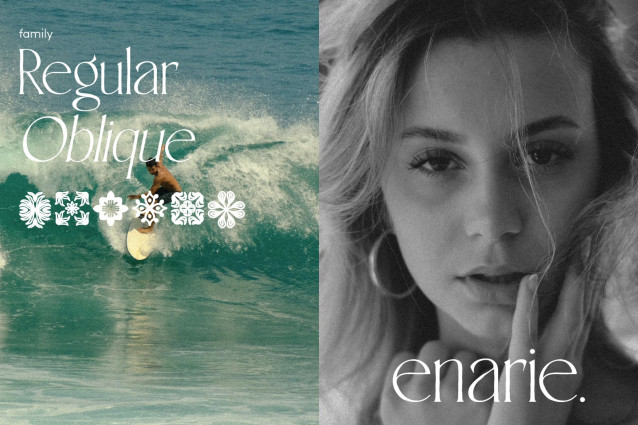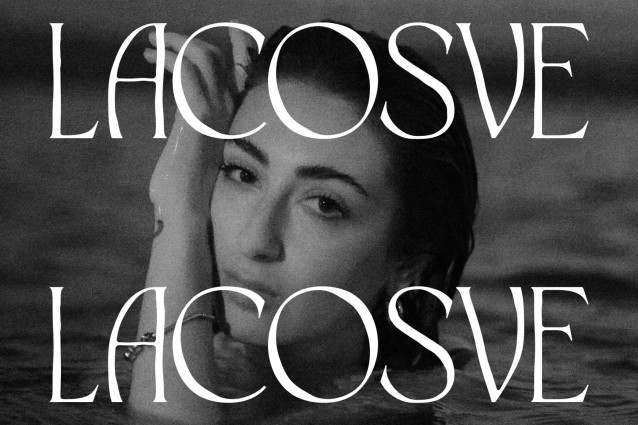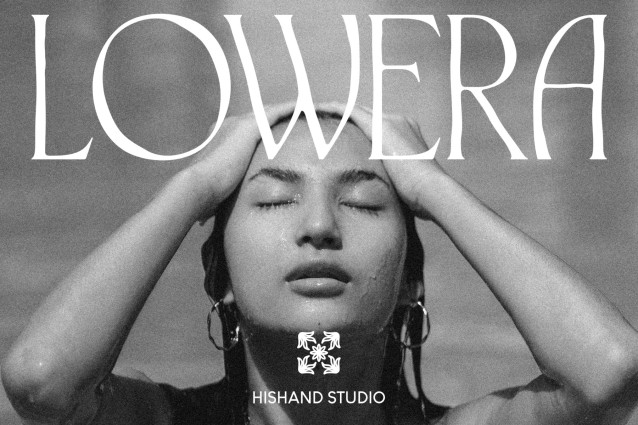
Lowera Serif Display Font is a handdrawn inspired display serif built for labels, packaging, and branding that need a warm, artisanal touch. Every letter carries the imperfect charm of ink on paper, with tapered strokes that swell and thin like they were cut by hand rather than built by a grid. The baseline breathes instead of sitting rigid, giving each word a relaxed, organic rhythm that feels vintage without looking dated.
This typeface draws inspiration from old label lettering and vintage packaging design, the kind found on apothecary jars, spirit bottles, and market signage from decades past. That heritage shows up in the small details: uneven stroke weights, tapered points instead of mechanical serifs, and a slightly wavering baseline that gives every word a natural, unforced movement. It is the kind of texture that a purely geometric typeface can never fake.
Lowera Serif Display Font works beautifully on kraft paper, apothecary style labels, spirits and coffee packaging, market signage, or any brand chasing an old world, handmade feel. Uppercase letters carry strong presence for headlines and logotypes, while the slight irregularity in stroke weight keeps the design feeling personal, not mass produced. Lowercase letters maintain readability at smaller sizes while still holding onto the same organic character, making the font versatile enough for both bold headline use and supporting text.